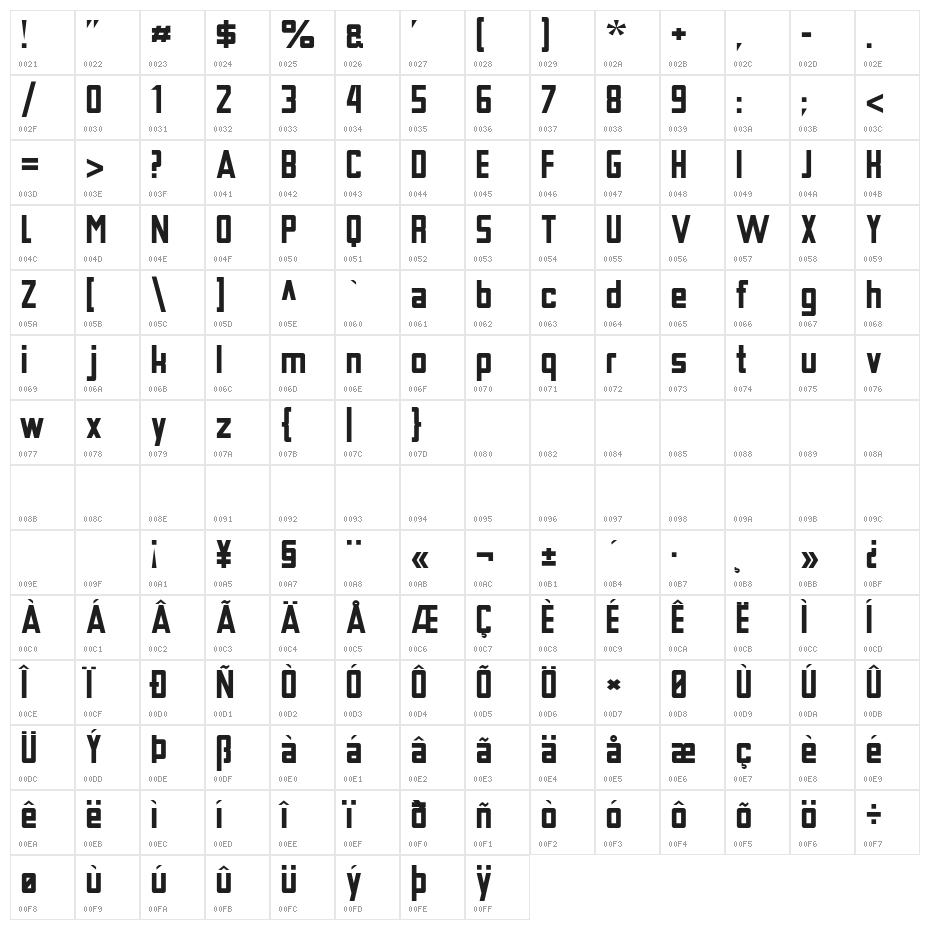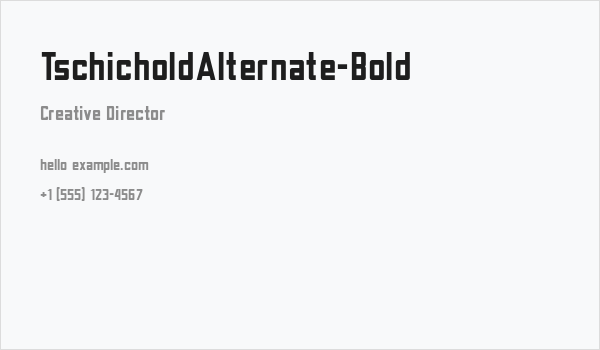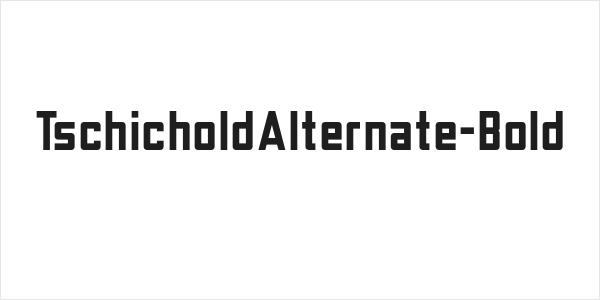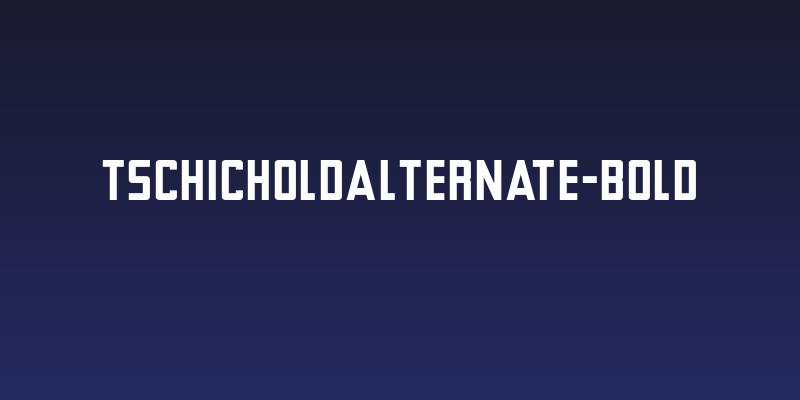
TschicholdAlternate-Bold Font
TschicholdAlternate-Bold Description
This typeface features a bold and geometric design, characterized by its strong, angular lines and uniform stroke widths. The uppercase letters are particularly striking, with a blocky, industrial feel that conveys strength and modernity. The lowercase letters maintain the same geometric precision, offering a cohesive look across different text sizes. Numerals are equally bold and clear, making them highly legible. Special characters are designed with the same attention to detail, ensuring consistency throughout. This font is well-suited for projects that require a modern, impactful aesthetic.
| Proposed Projects | Ideal for branding, headlines, posters, and any design that requires a modern, impactful look. |